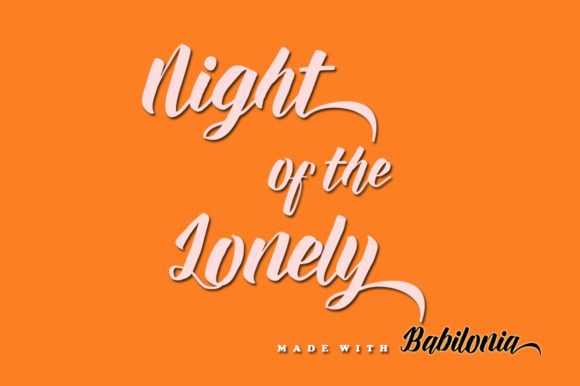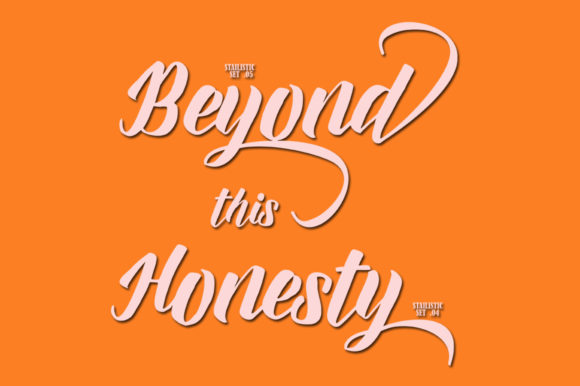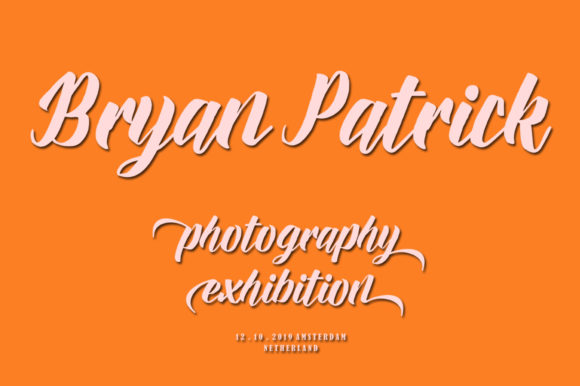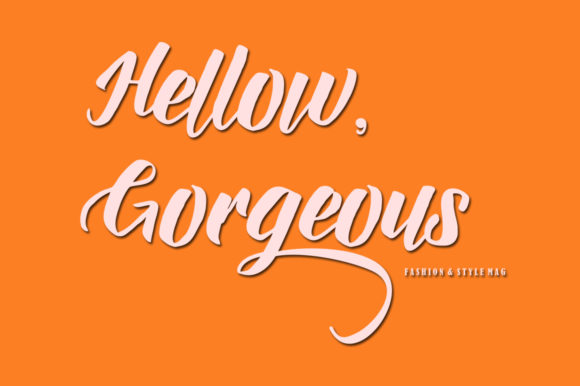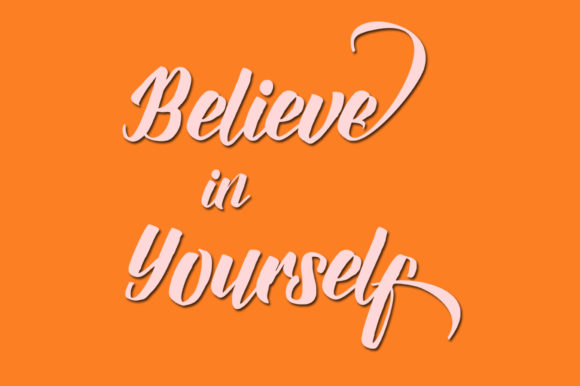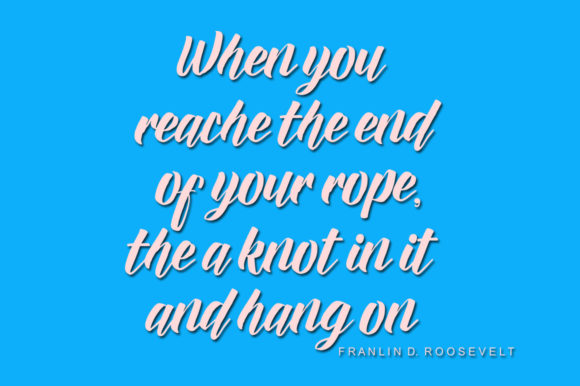
The Babilonia Font: A Vintage, Feminine Treasure for Designers and Crafters
Ah, the elusive perfect font. You know, that one that makes your design project go from meh to mesmerizing. I’ve been there, done that, and got the t-shirt (which, coincidentally, was designed with a fabulous font). Recently, while working on a wedding invitation project, I found myself on a quest for the ideal font. That’s when I stumbled upon the Babilonia font, and let me tell you, it was love at first sight!
First Impressions: A Personal Review
The Babilonia font is a vintage, feminine beauty with an irregular baseline that adds a touch of whimsy to any design. Here’s what I love about it:
- ✨ Unique, hand-crafted feel that adds character to any project
- ✅ Perfect for wedding invitations, thank you cards, quotes, and greeting cards
- ✨ Highly versatile and can be used for logos, branding, and more
- ✅ Easy to read, despite its irregular baseline
Of course, no font is perfect, and Babilonia has a few minor quirks:
- ⚠️ Some letters may appear a tad too ornate for very formal or corporate designs
- 🤔 Limited availability of certain OpenType features, which might restrict advanced typographic control
Exploring Alternatives: Similar Fonts to Babilonia
If you’re looking for more vintage charm or want to experiment with different styles, consider these alternatives:
- Pacifico: A beautiful, modern script with a relaxed feel, perfect for casual, friendly designs.
- Great Vibes: An elegant, handwritten font great for formal and informal projects, offering a slightly more subdued look than Babilonia.
- Lobster: A bold, yet charming font with a distinctive flair, suitable for headings and titles.
- Carolyna Pro: A refined, elegant script with a classic feel, ideal for sophisticated designs and branding.
The Story Behind Babilonia
While the origins of Babilonia might be shrouded in mystery, its design is undoubtedly inspired by the timeless elegance of vintage typography. Imagine a font designer, rummaging through antique books and letterpress archives, seeking to revive the charm of a bygone era. That’s Babilonia – a love letter to the past, with a dash of modern flair.
| Author | Delisha Design |
| What makes Babilonia unique? | Its irregular baseline and vintage, hand-crafted feel set it apart from more uniform fonts. |
| Is Babilonia a difficult font to read? | No, despite its ornate appearance, Babilonia is designed to be legible and easy to read. |
Babilonia is more than just a font – it’s a design statement. With its unique character and versatility, it’s sure to become a favorite among designers, crafters, and creative hobbyists alike. So go ahead, give Babilonia a try, and let its vintage charm elevate your next design project!